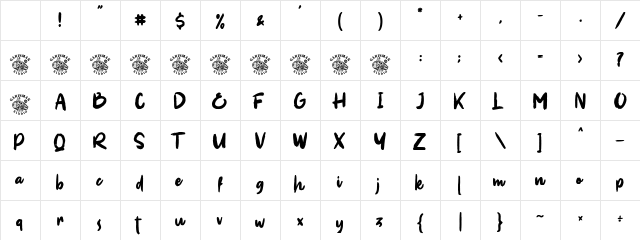
Soul Paint is a composed and adaptable typeface that performs quietly and consistently across a wide range of design contexts.
Pro Tip: Use Soul Paint in both headline and body roles to test its range before committing to a single application.